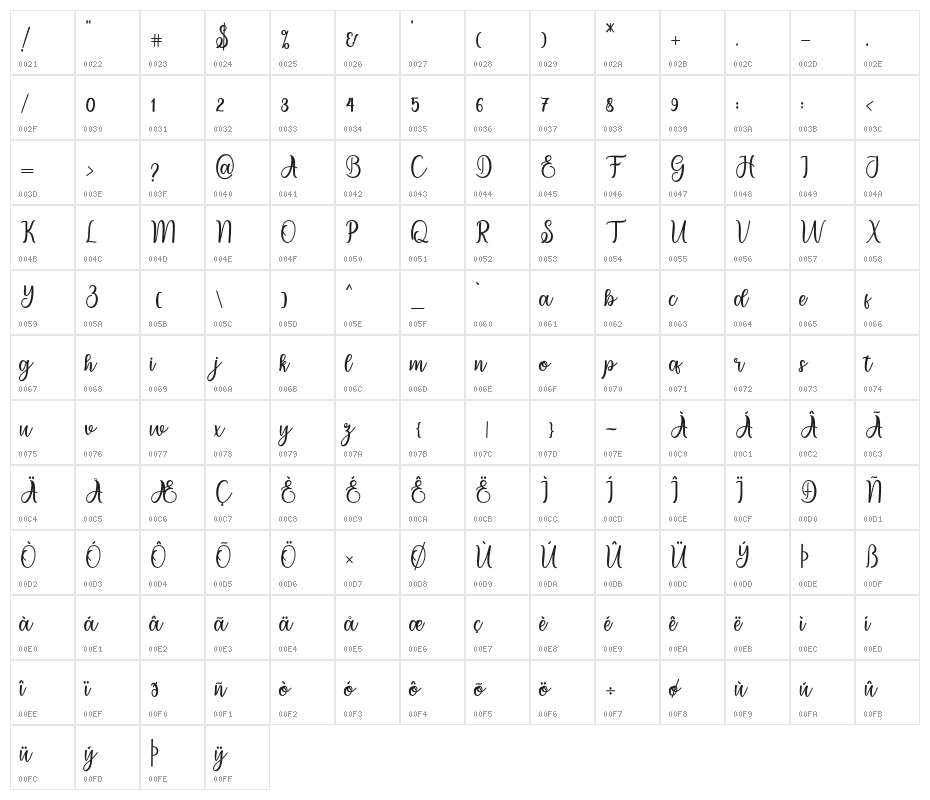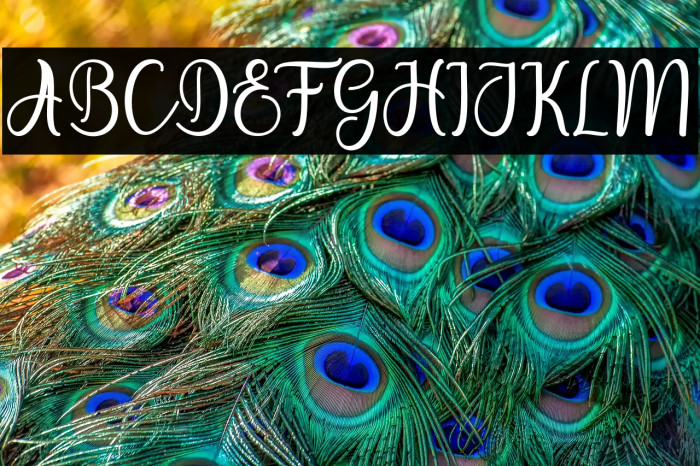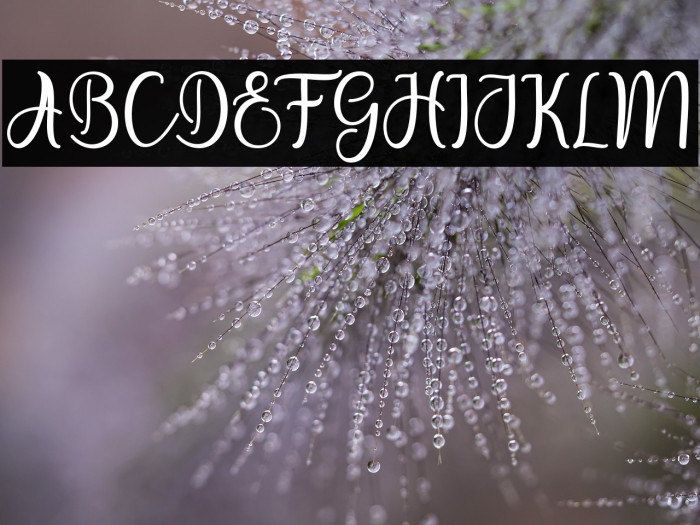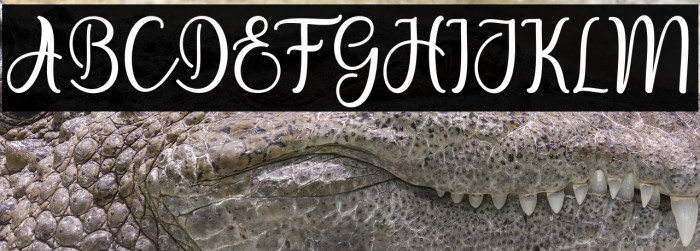
migdale Font
migdale Description
This font features a flowing, cursive style with elegant loops and swirls, giving it a handwritten appearance. The uppercase letters are bold and prominent, with distinctive flourishes that add a touch of sophistication. The lowercase letters maintain a consistent style, with smooth connections between characters, enhancing readability while retaining a decorative flair. The numerals are clear and well-defined, complementing the overall aesthetic. Special characters are thoughtfully designed to match the font's elegant style, making it versatile for various uses.